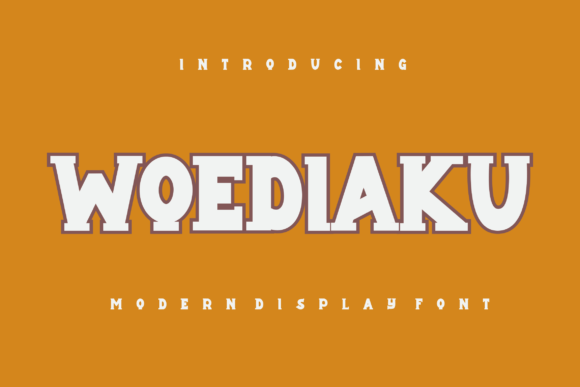
Unleash your inner tech genius and let your designs soar to new heights with Woediaku, the ultimate display font crafted to elevate your tech logo game. Experience the power of a font that exudes boldness, modernity, and a touch of playful charm, leaving an unforgettable impression in the digital realm.
Woediaku's chunky letters, meticulously designed by the talented kalingga.albert, command attention and communicate the essence of innovation and progress. Each character radiates with a distinct personality, striking a perfect balance between strength and finesse. Whether you're creating a captivating logo for your tech startup, a sleek and modern website, or eye-catching branding materials, Woediaku will make your designs shine.
With Woediaku, you'll discover a font that seamlessly adapts to your creative vision. From minimalistic designs that demand attention to intricate, multi-layered compositions, Woediaku effortlessly elevates your designs, adding an extra spark of brilliance. Let your imagination run wild and explore the endless possibilities that await you with this versatile font.
So, dive into the world of Woediaku and witness the transformation of your designs. Unleash your creativity, embrace the boldness of Woediaku, and leave a lasting impression on the digital landscape. Let Woediaku be your secret weapon, propelling your tech logo to greatness and making your brand shine brighter than ever before.